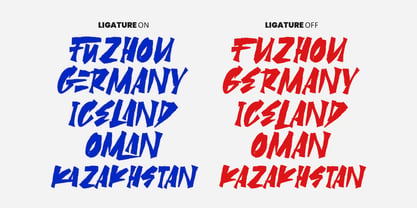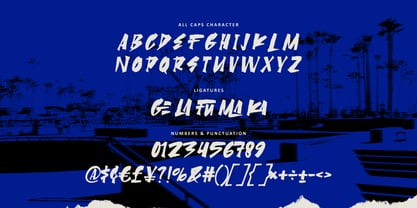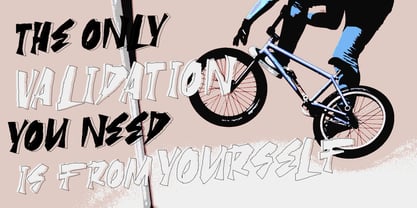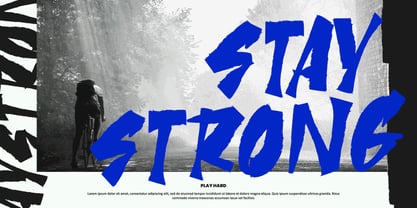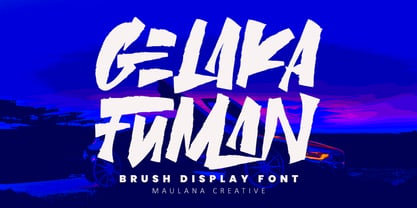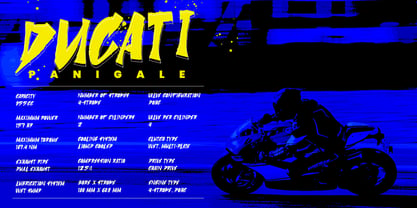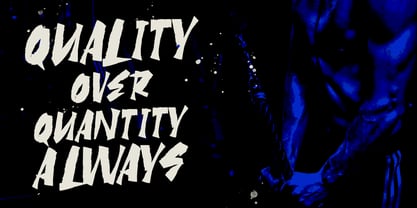
MC Gelaka Fuman
by Maulana Creative
The MC Gelaka Fuman Font Family was designed by Gilang Maulana and published by Maulana Creative. MC Gelaka Fuman contains 1 styles. More about this family
Give your designs an authentic brush handcrafted feel. "Gelaka Fuman Sport Brush Display Font" is perfectly suited to stationery, logo, typography quotes, magazine or book cover, website header, flyer, clothing, branding, packaging design and more.
Designers: Gilang Maulana
Foundry: Maulana Creative